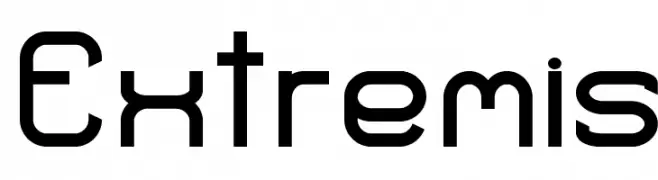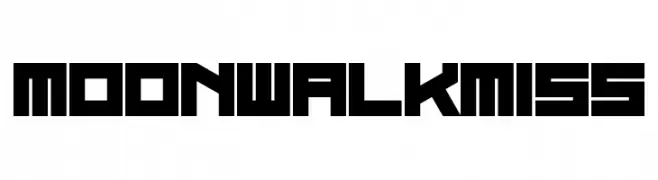
( Barland - creativemarket.com/Barland )
An elegant script font with flowing, cursive letters and delicate swashes.
( Bellini Studio - Savio Bellini - www.bellinistudio.eu )
A modern, italic font with clean lines and balanced proportions.
( Bellini Studio - Savio Bellini - www.bellinistudio.eu )
A modern, clean sans-serif font with balanced spacing and consistent stroke width.
( Brandon Secrist )
A modern, geometric font with rounded edges and a clean, uniform appearance.
( Chequered Ink - chequered.ink/ )
A bold, geometric font with rounded edges and a modern style.
( Chequered Ink - chequered.ink/ )
A bold, geometric font with a futuristic and angular design.
( CrazeCo.com.au - Craze™ Co - CrazeCo.com.au )
A bold, graffiti-inspired font with thick, rounded strokes and a playful urban aesthetic.
( Din Studio - Donis Miftahudin - creativemarket.com/donism )
A bold, playful font with exaggerated, rounded forms and tight spacing.
( Din Studio - Donis Miftahudin - creativemarket.com/donism )
A playful, cartoonish font with bold, rounded characters and whimsical details.
( Gavin Fiorina - www.gavfior.blogspot.com )
A geometric, futuristic font with bold, circular shapes and unique cut-out patterns.